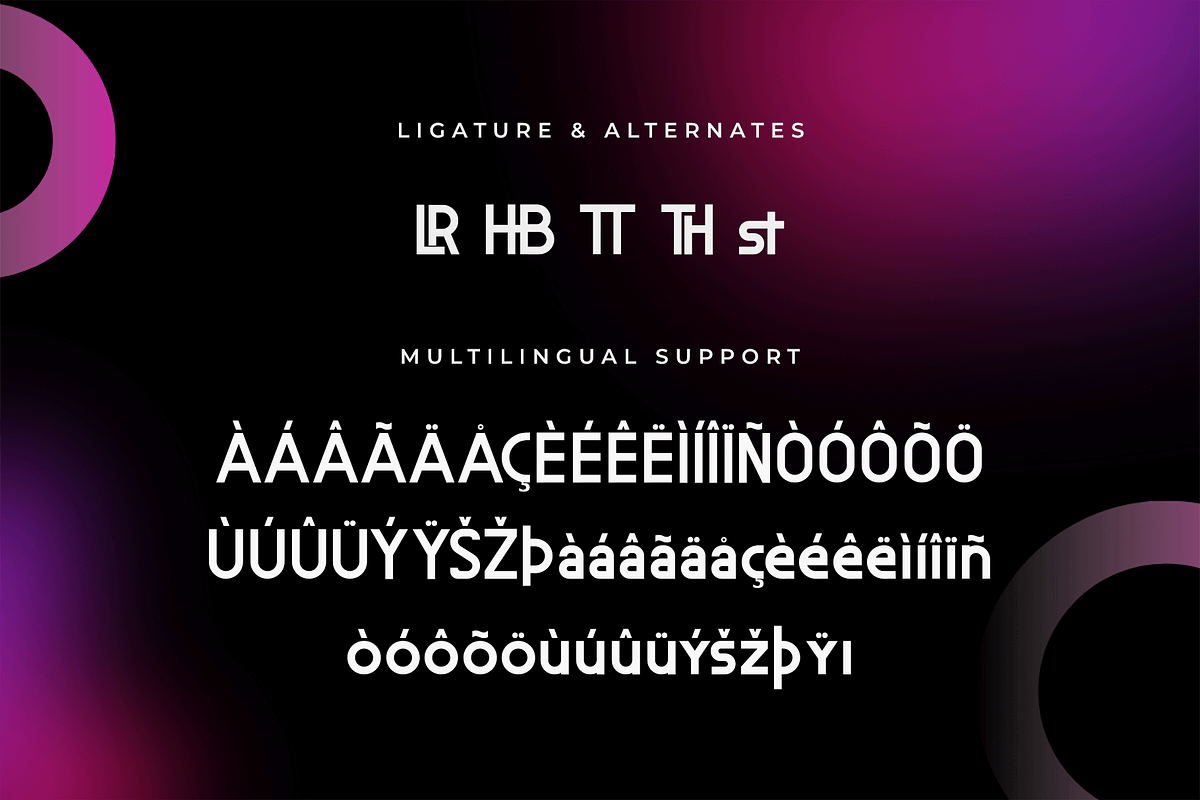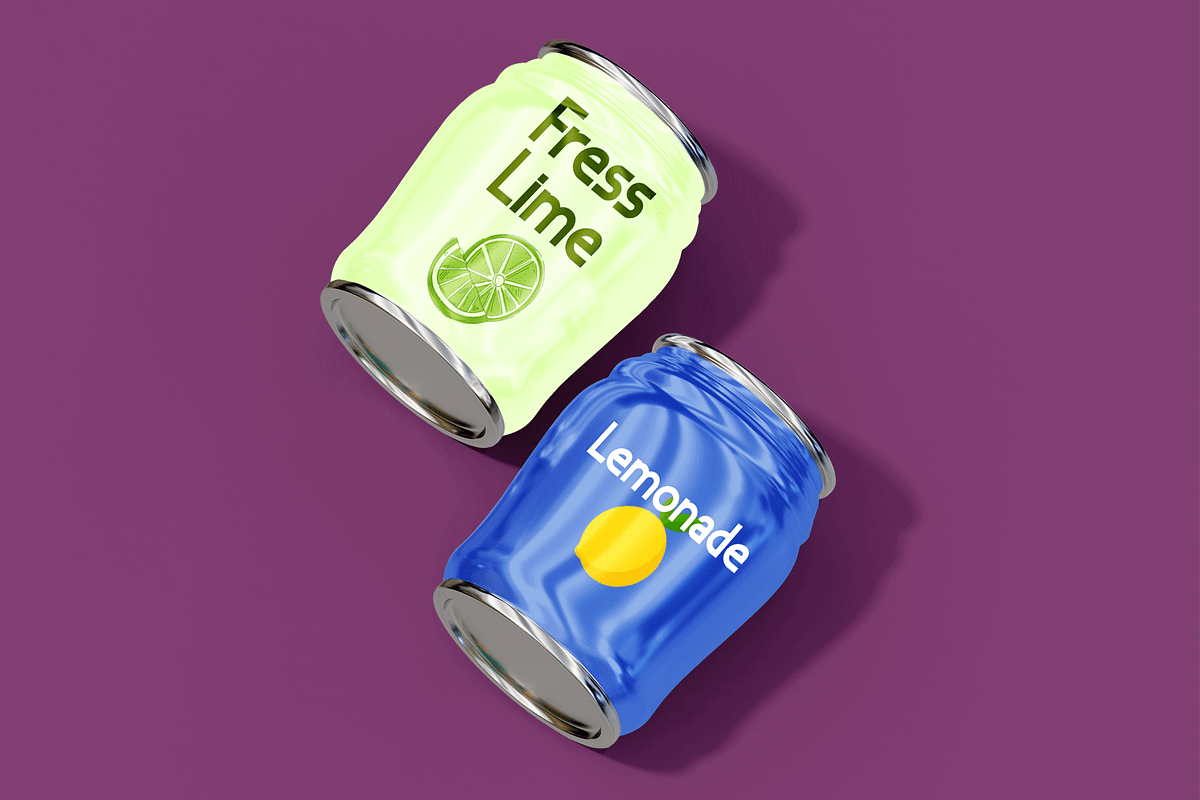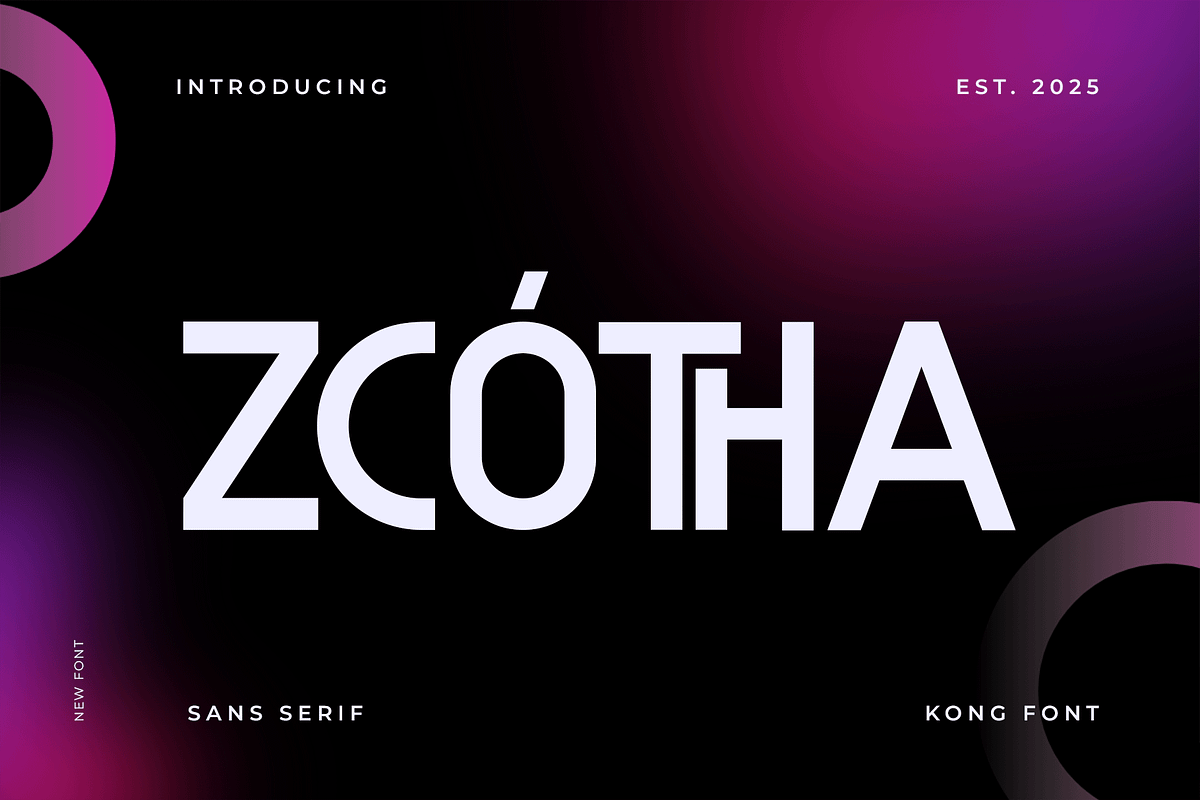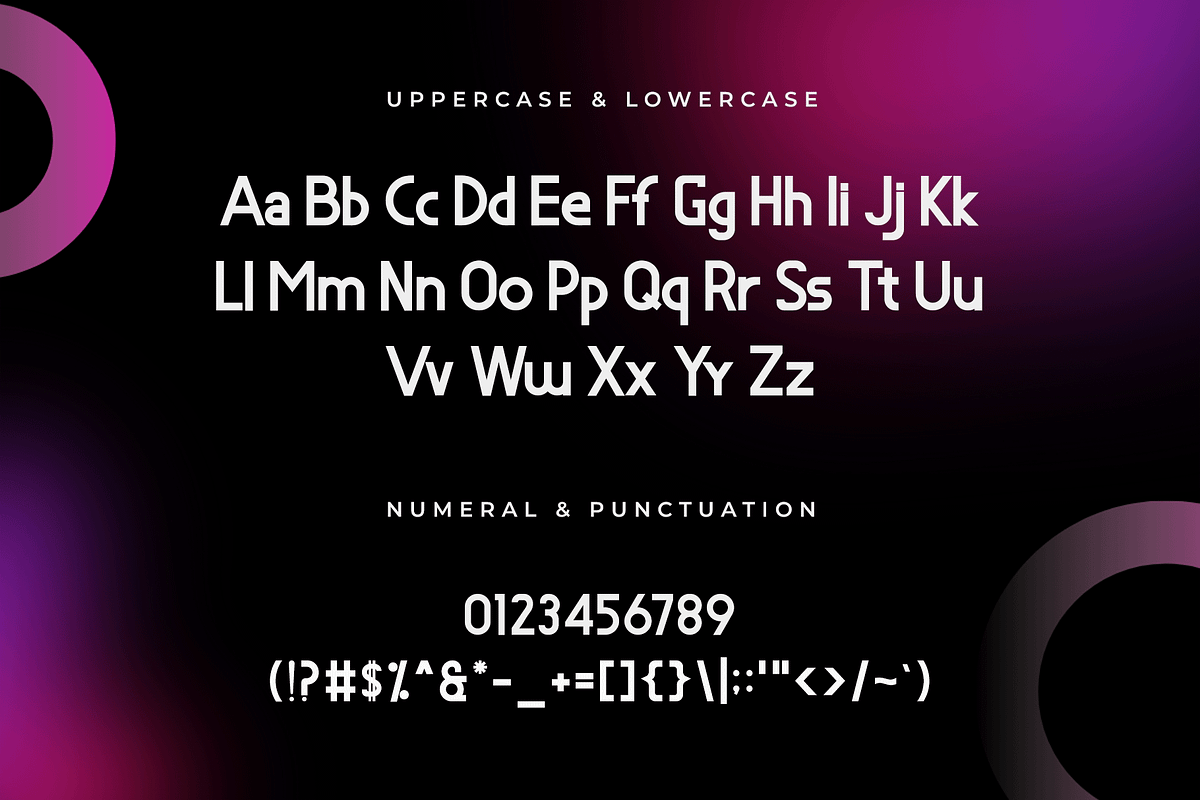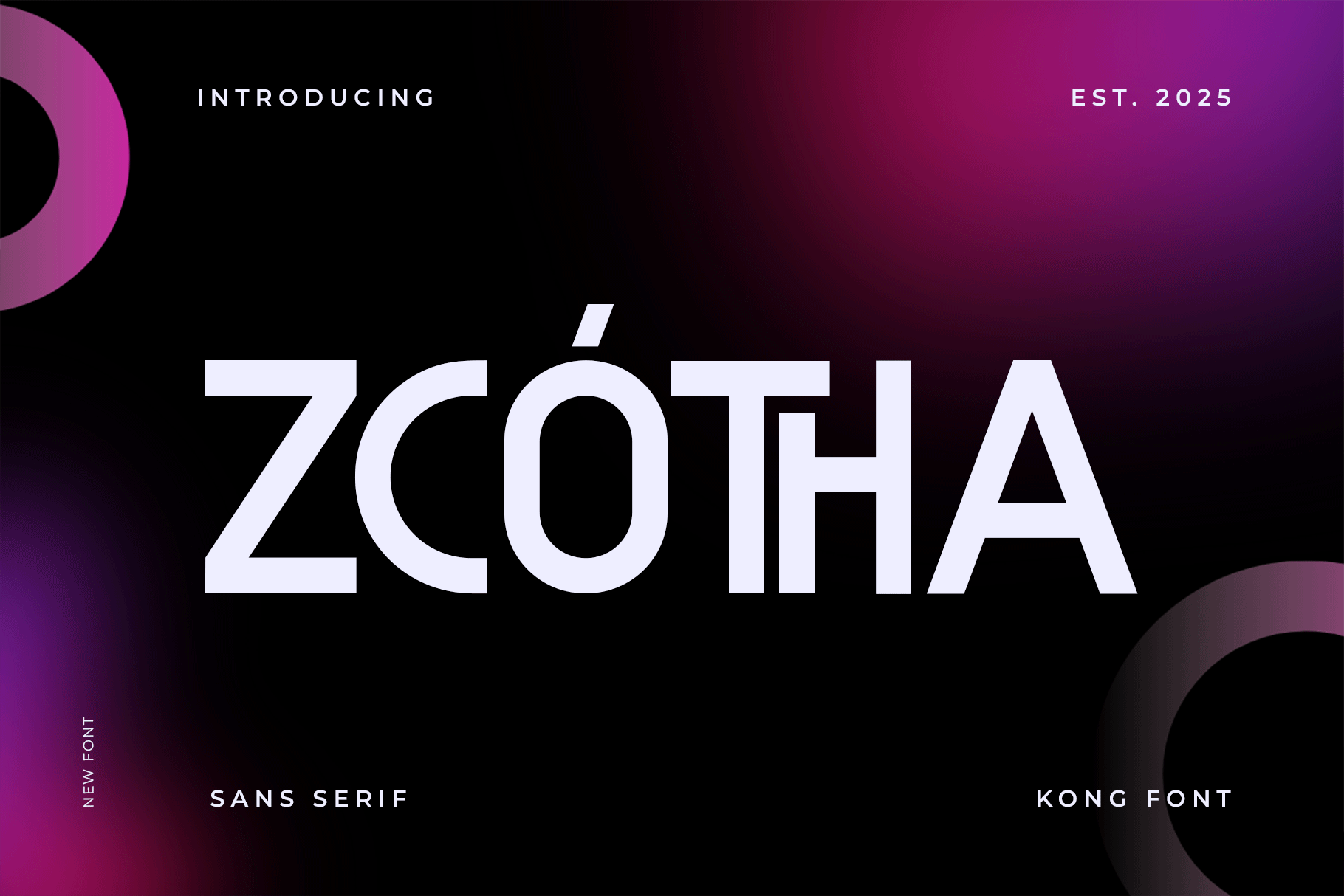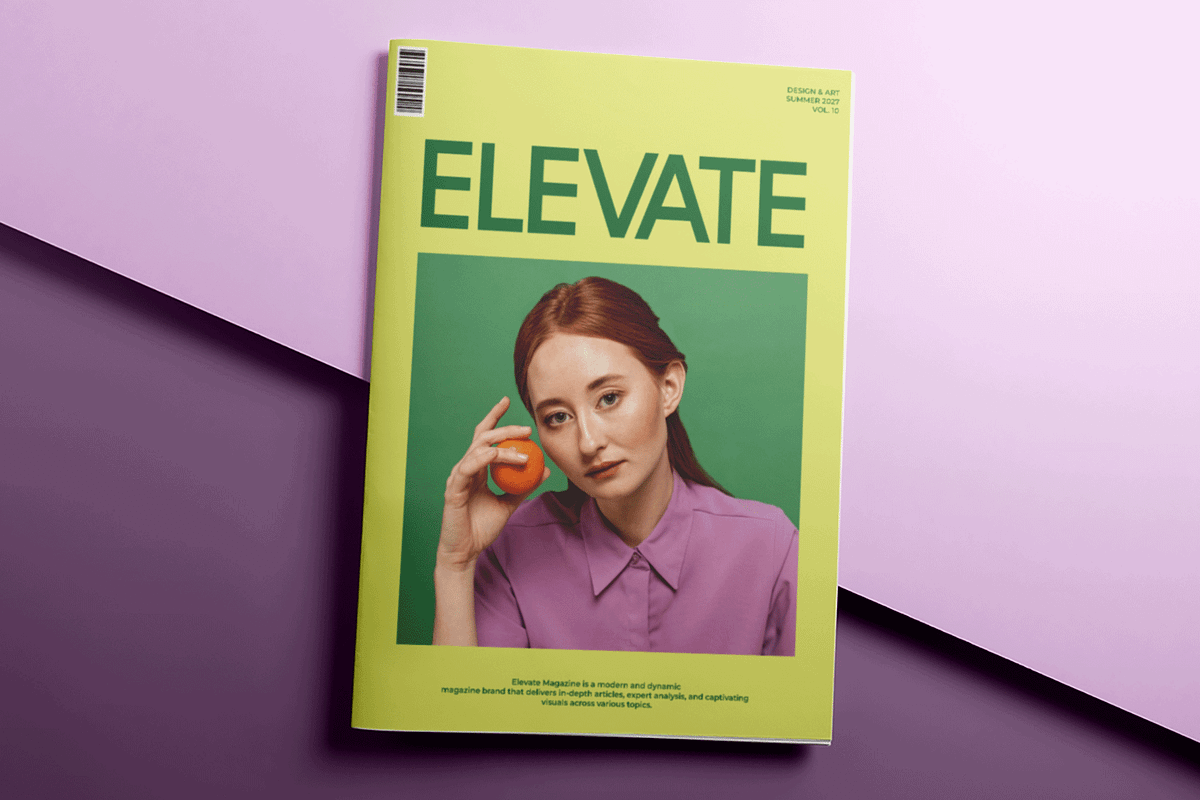
Zcotha – A Modern Sans Serif Font
Zcotha is a modern sans serif font designed to bring a sleek, clean, and professional touch to any project. With its well-balanced letterforms and contemporary styling, this typeface is perfect for branding, web design, editorial layouts, and corporate presentations.
The font features smooth curves, sharp edges, and excellent readability, making it an ideal choice for both print and digital applications. Whether you're crafting a high-end logo, a minimalist website, or a stylish advertisement, Zcotha provides the versatility and sophistication you need.
Equipped with uppercase and lowercase letters, numerals, punctuation, and multilingual support, Zcotha ensures a seamless and polished design experience.